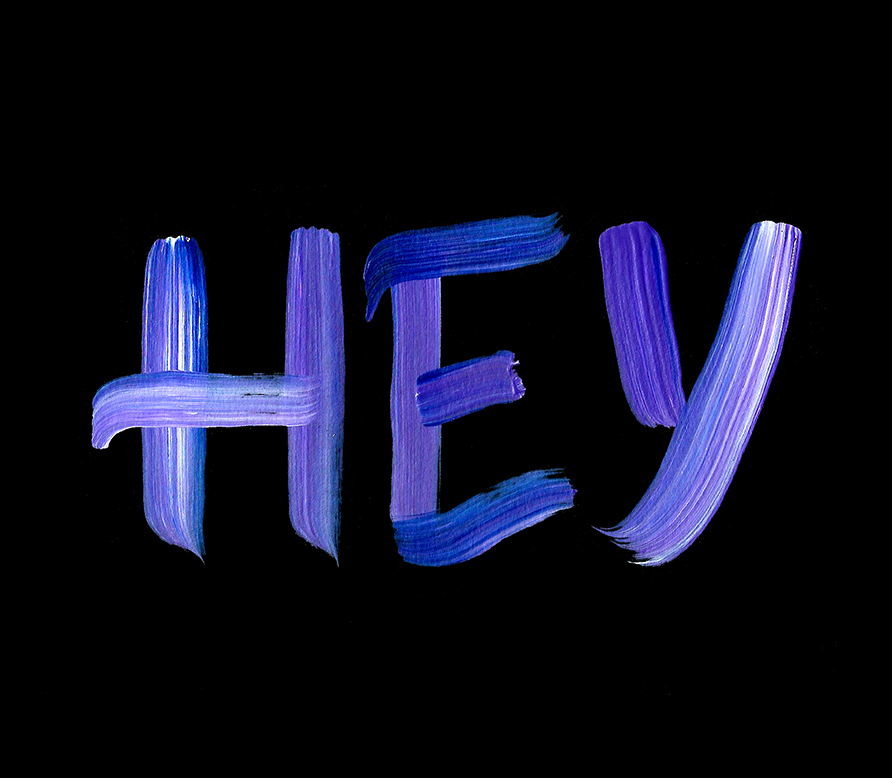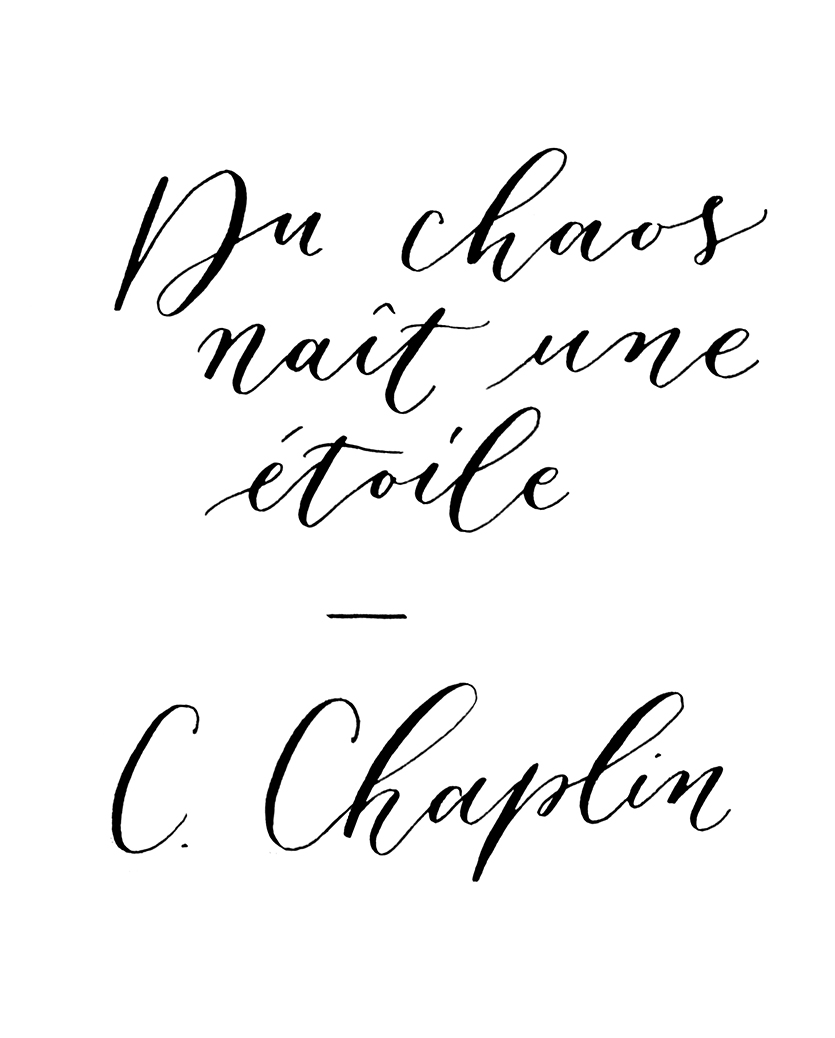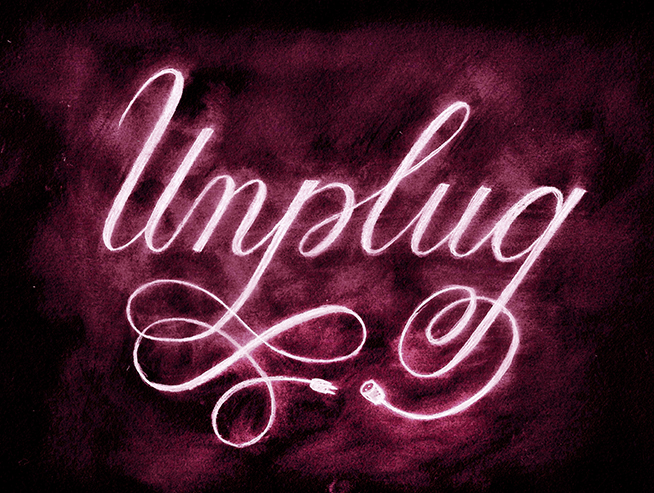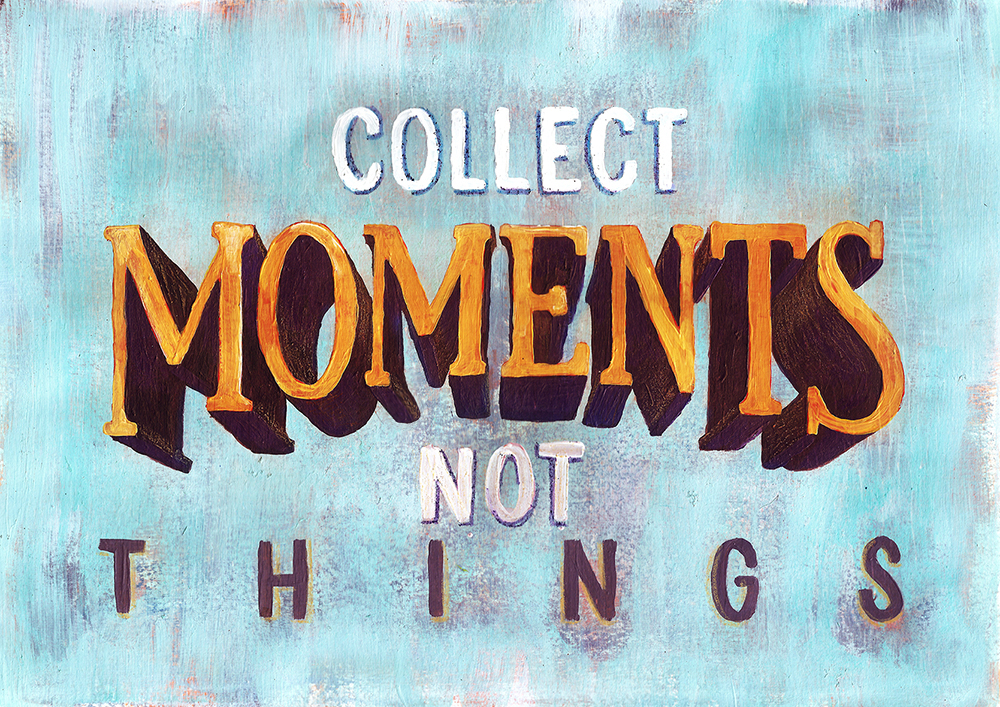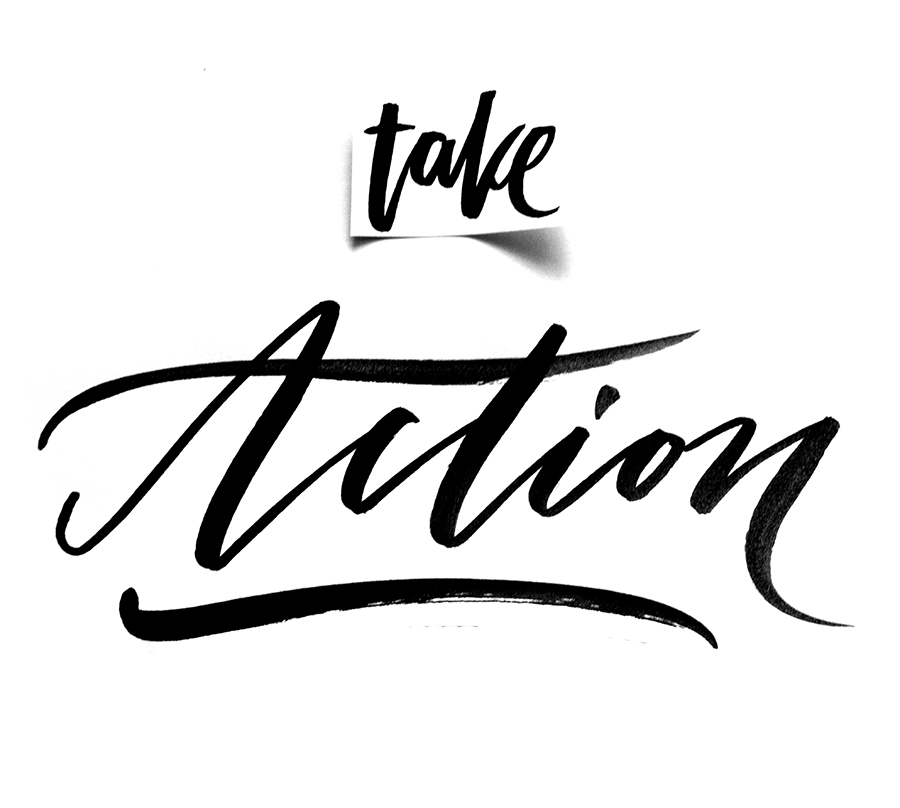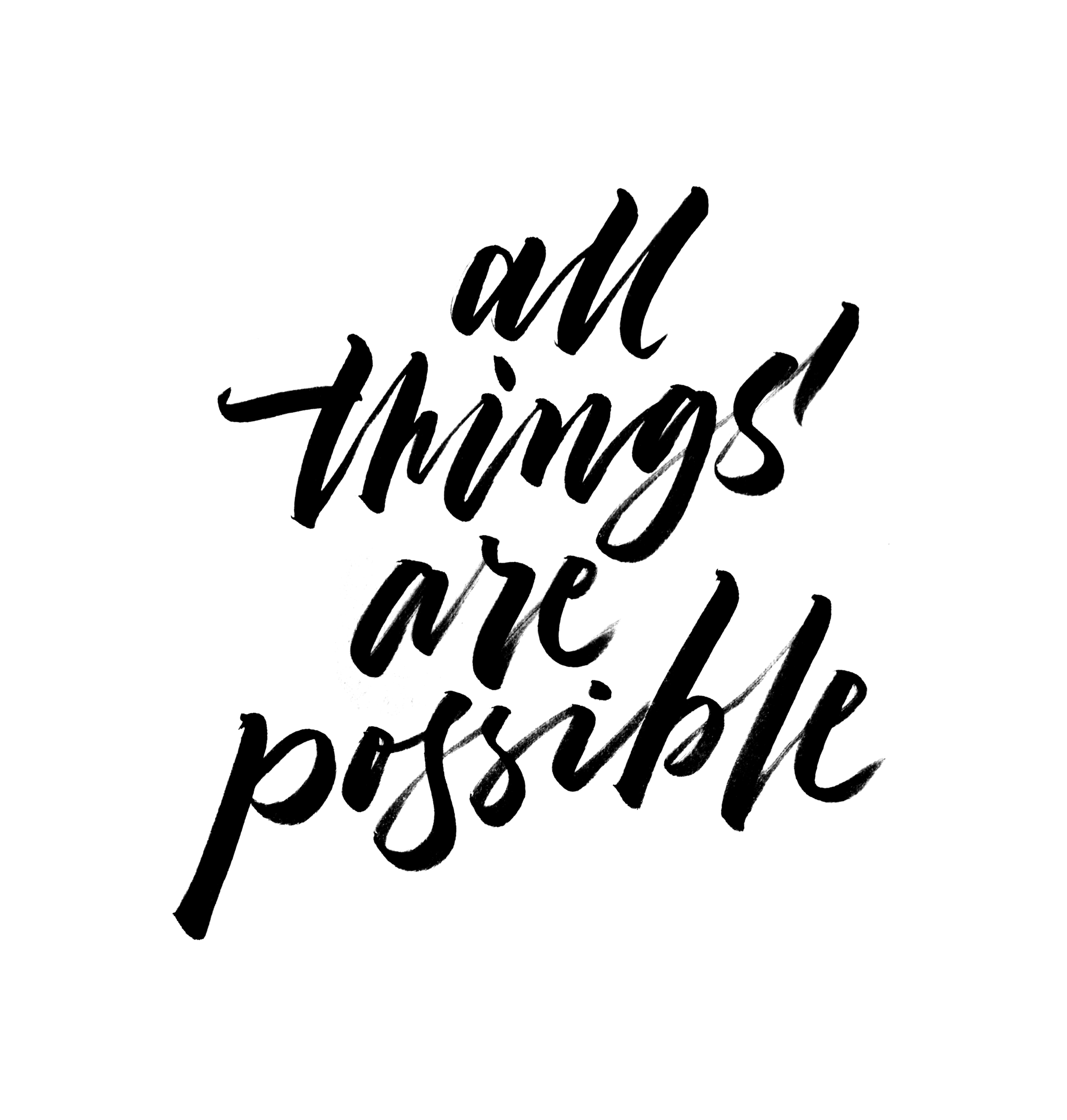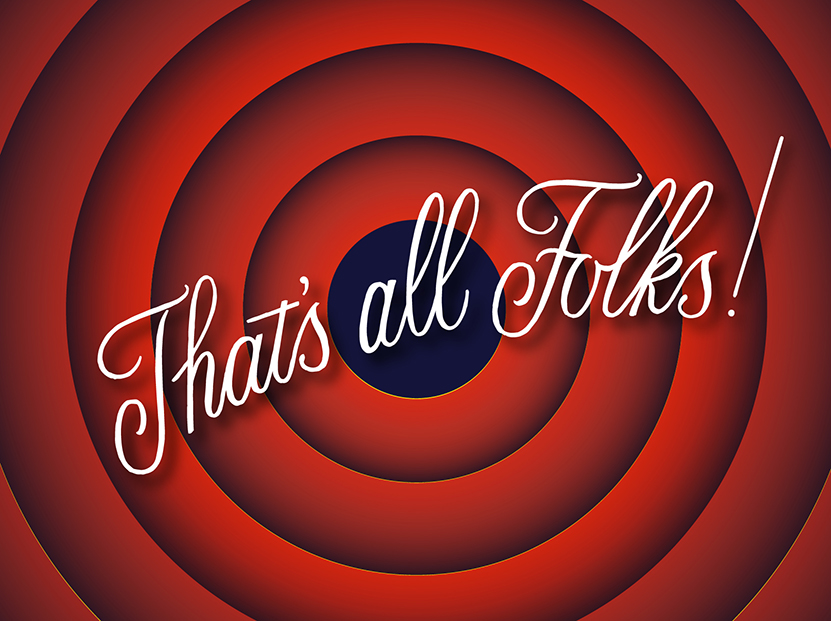
100 Days of Lettering: Part 10
The last part of the lettering challenge. Finally!
I can’t believe that today is the last day of my lettering project. In the middle of the challenge I had an impression that it would never end. Looking back now I realize that it was actually very fast and even not enough to find my favorite style, technique or media. Drawing letters for 3+ months is almost nothing if you think about your whole life. It’s like a tiny little step towards new adventures and discoveries. The good thing is that the end of the project is not the end at all, but rather a beginning. I will try to maintain my habit of drawing letters every day and post new projects as often as possible. Now I'm going to make myself a cup of coffee and enjoy the moment of glory ;)
100 Days of Lettering: Part 9
Rediscovering pencils.
One of the best things that happened during my lettering challenge is that I started drawing a lot with pencils. For a long time, I avoided using this basic tool and preferred working with ink instead. The idea of smashing a pencil sketch with my hand and ruin the whole piece always terrified me. When it comes to working with ink, I pay much more attention to keeping my hands out of the freshly painted area. Most of the time my hand and the ink do not interfere, so there is no mess. Working with pencils was more challenging. I had to be careful with my hands when going back and forth over the drawing. Recently I found a few tricks that help me to keep the pencil sketches clean:
1. Go from light to dark.
I usually start my sketch with a hard pencil such as F or HB, which gives a light line. It allows me to work all over my sketch without any fear to make it messy with my hand. Also, light sketches are easy to correct with an eraser.
2. Use a protective layer of paper.
Sometimes I put a piece of paper on top of the pencil sketch to protect it from my hand movements. This trick works pretty well, although it demands an extra attention each time when moving the protective layer of paper to cover a new area of the sketch. I always check the paper’s “down” side that was in contact with my drawing to make sure it has no traces of pencil. If it’s dirty, I use a new clean piece of paper.
3. Redraw the final work.
Nothing works better than redrawing the final work. When all the details are placed in place, I put a new piece of paper over my sketch and redraw everything. This process is clean since I move my hand from top left to bottom right of my drawing without going back and forth.
That’s all for today. If you have other tips and tricks on how to keep a pencil drawing clean, I would be glad to hear them from you. Also stay tuned for the last part of my lettering project!
100 Days of Lettering: Part 8
During the last ten days I spent a good amount of time working on a single piece — “Eighty percent of success is showing up.”
I immediately fell in love with this quote by Woody Allen, since it sounds like a perfect motivational poster for any creative person. It took me approximately 10 hours to finish this piece from the first sketch to the final vector work. I still see few places where I would add more details, but for the purpose of this project I will keep it as it is for the moment. The rest of the work is the usual brush lettering.
100 Days of Lettering: Part 7
I’m back with a project update for the last ten days.
In the beginning of my lettering challenge I was trying as many techniques and as many media as possible: pencils, markers, brush pens, natural brushes, digital painting, etc. It was all very fun, although sometimes a little bit time consuming. I knew it wouldn’t be possible to have a lot of time to draw each day for all hundred days, so I was prepared that sometimes I would only have 10 minutes to accomplish my piece. What I found is that accessibility of your tools is the key to keep up with this challenge. It’s easy to work with brush pens or practice calligraphy, since it requires basically only one step: just open the ink container and you are ready to go. That’s easy. Brush pens usually don’t have to be cleaned at the end like, for example, natural brushes. And we all agree that washing brushes is much less fun than dipping them into paint. Most calligraphy nibs need a simple wiping with a wet tissue to be shiny and bright again. The easier are all the preparation and the finishing steps, the lesser is the resistance to start. This is a crucial requirement for a long term daily project. In my case it turns out that ink is my easy-to-go tool.
100 Days of Lettering: Part 6
Here is my #100daysoflettering update + few tips on getting started with your own daily lettering challenge.
I challenged myself with the #100daysoflettering because I strongly believe that quality comes with quantity. I remember very well the time when I've been working for a month on one particular vector lettering. It was quite a detailed piece and everyday I was trying to change something: add new colors, textures or even more details. I've made about 10 versions of that image, but nothing pleased me enough. Here I must say that it was my third attempt to create a vector lettering. At that time I was very naive to think that playing with shadows, colors, and other fancy stuff was the best way to improve that particular work. But it was wrong. Sticking with only one project for a long time is not good in the beginning. It's much better to work on quantity and gain experience then stress too much about the quality of your first attempts. Now I realize that I should have done several smaller projects during that month instead of spending a lot of time on improving one image. The reason I love my daily lettering project is that it keeps me in a flow. I almost became a lettering machine (it feels so). Even though I don't always have a lot of time to experiment with techniques and styles, I practice some kind of lettering everyday and this is the most valuable part of the whole challenge.
If you think about starting your own #manydaysoflettering challenge, here are few tips to consider:
1. Prepare the Phrases in advance.
Nothing is more distracting and time consuming than trying to find the right phrase to draw just before the practice. I’ve spent half an hour to find and write down about fifty phrases for my challenge. The rest of the list is filling on the go when I have a spark of inspiration.
2. Cite the author or use your own phrases.
When working with a specific quote, make sure to cite the author. Invent your own quotes or use some general motivational phrases like “Never give up” or “Smile more often.”
3. Keep it simple.
In the beginning I suggest creating a single word lettering, since it’s much more manageable. Drawing a long phrase can be overwhelming and discouraging, so keep everything simple.
100 Days of Lettering: Part 4
Here is my quick project update for the last ten days. Beside the calligraphy and brush lettering practice, I tried a full page of lettering without initial sketch for the first time. It was done with pens, so I was not able to make any corrections. Dealing with space issues on the go was really hard and the whole experiment was quite uncomfortable for me. Nevertheless in the middle of the page I found some kind of flow and enjoyed the process without judging the result. Trying new things is always scary, but it expands the comfort zone and, therefore, is good.